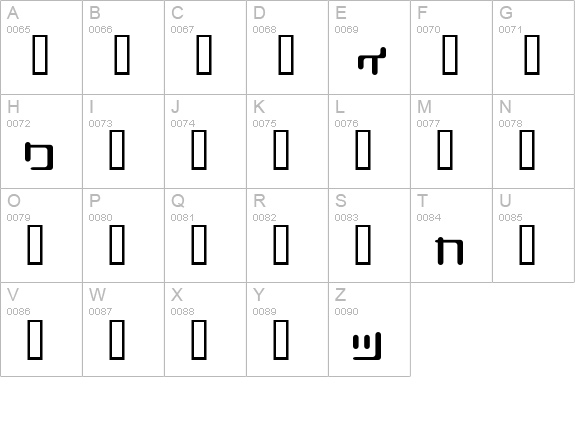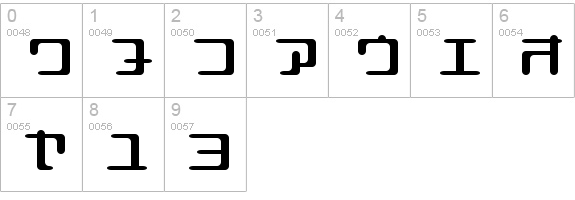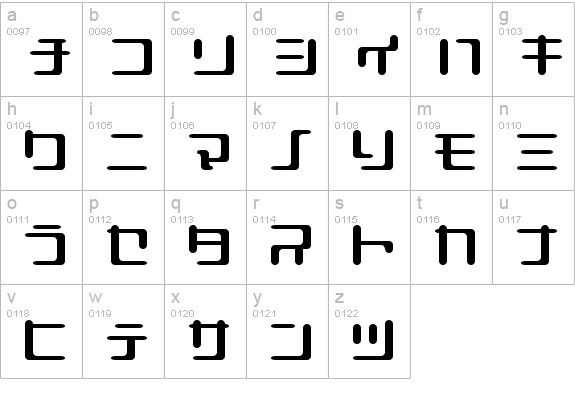
I2Izam Font Details
Introducing I2Izam, a breathtakingly beautiful font that will captivate your audience with its exquisite design and graceful curves. This font is the epitome of elegance and sophistication, making it the perfect choice for any project that requires a touch of class. With its unique blend of modern and traditional elements, I2Izam is versatile enough to be used in various contexts, from elegant invitations to stylish logos and everything in between. Its clean lines and balanced proportions make it highly legible, ensuring that your message will be conveyed effortlessly to your readers. But what sets I2Izam apart from other fonts is not just its stunning aesthetics – it's also completely free! Yes, you read that right. This exceptional font is freely available to download at FontsMarket.com, allowing you to enhance your designs without having to spend a dime. So why wait? Discover the beauty and versatility of I2Izam today and take your projects to the next level. Whether you're a professional designer or someone who simply appreciates the power of great typography, this font will undoubtedly become an invaluable addition to your creative arsenal. Unlock the potential of your designs with I2Izam, the font that effortlessly combines style, elegance, and a generous price tag of absolutely free. Download it now at FontsMarket.com and let your creativity soar.